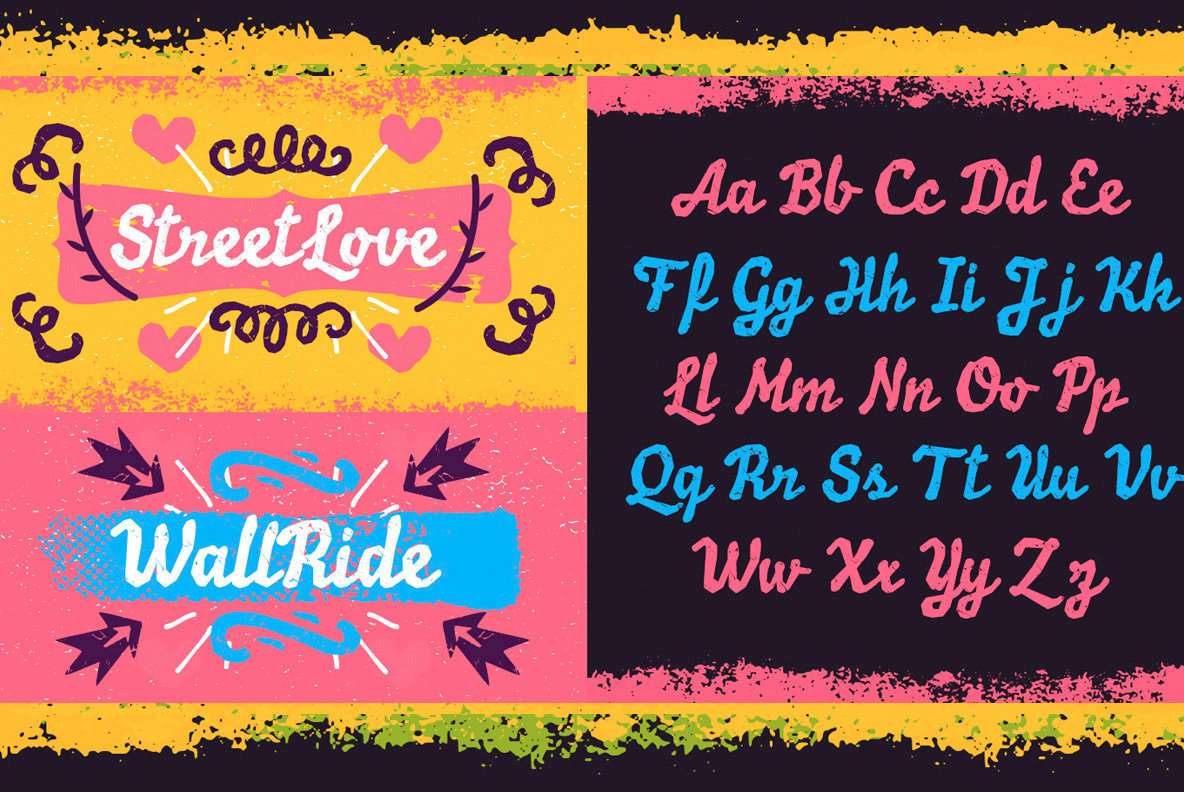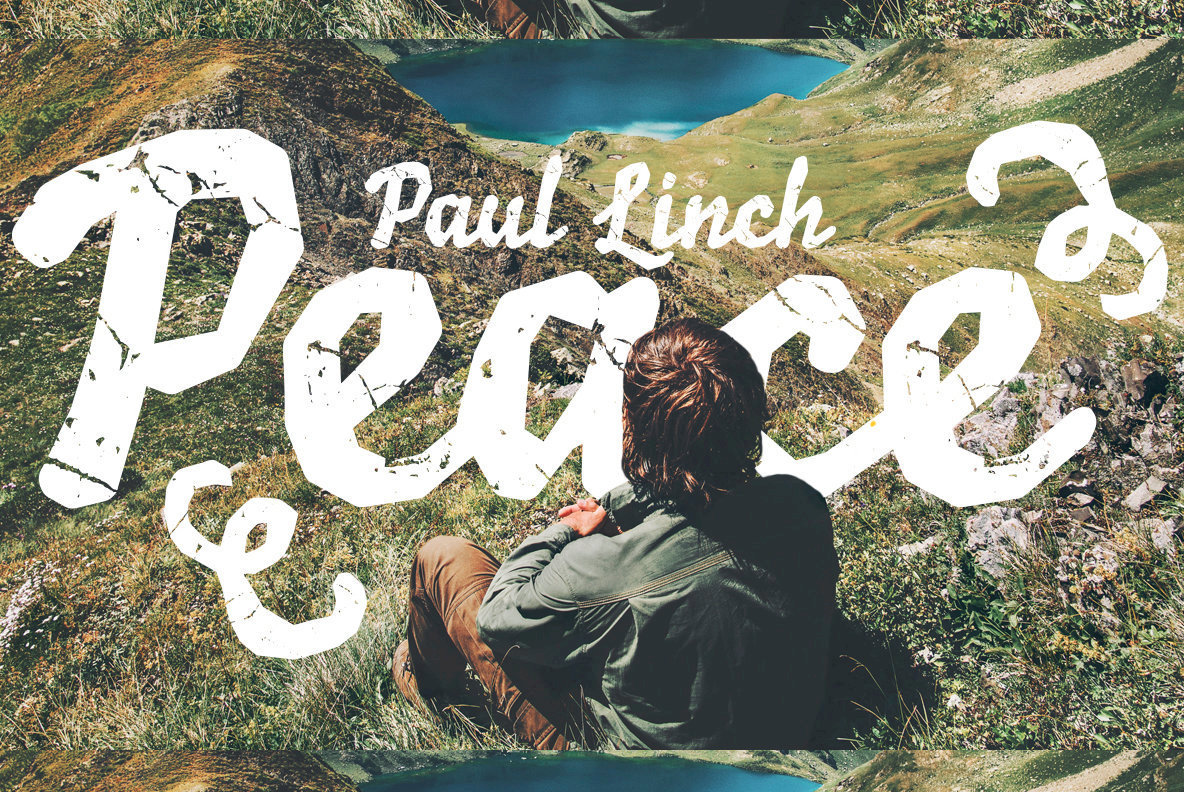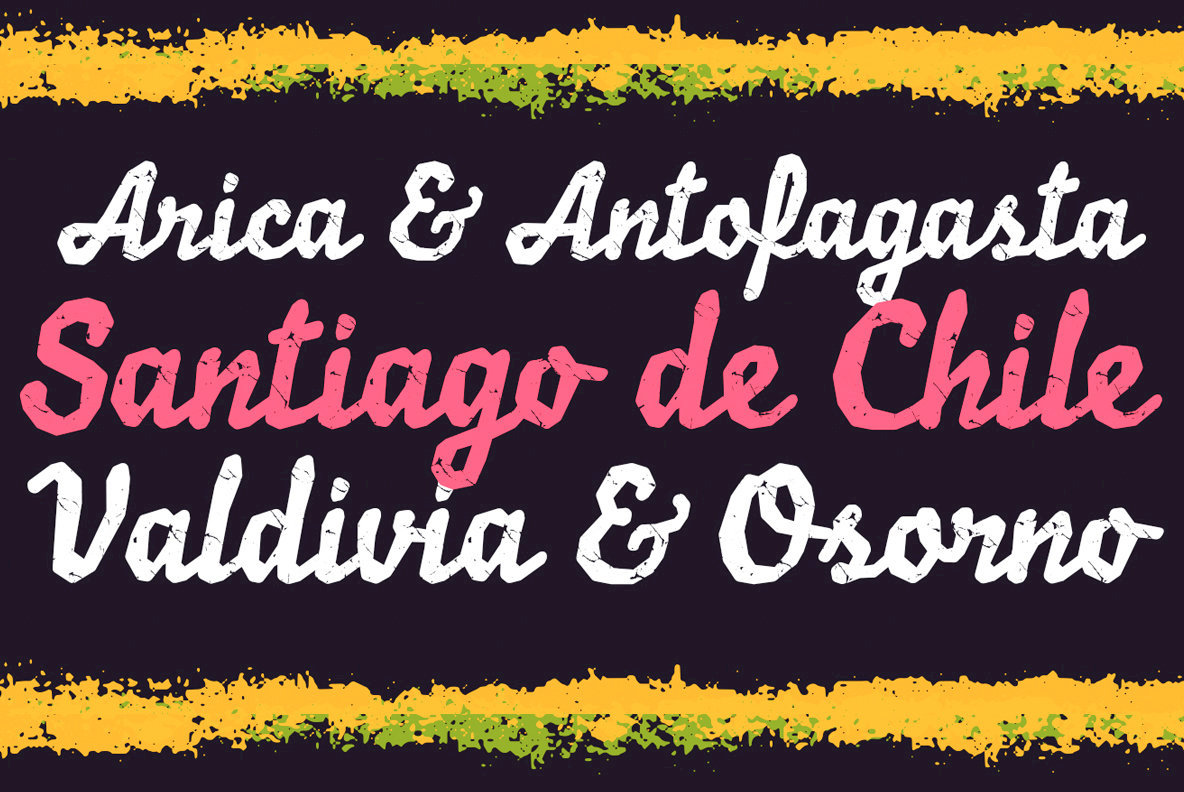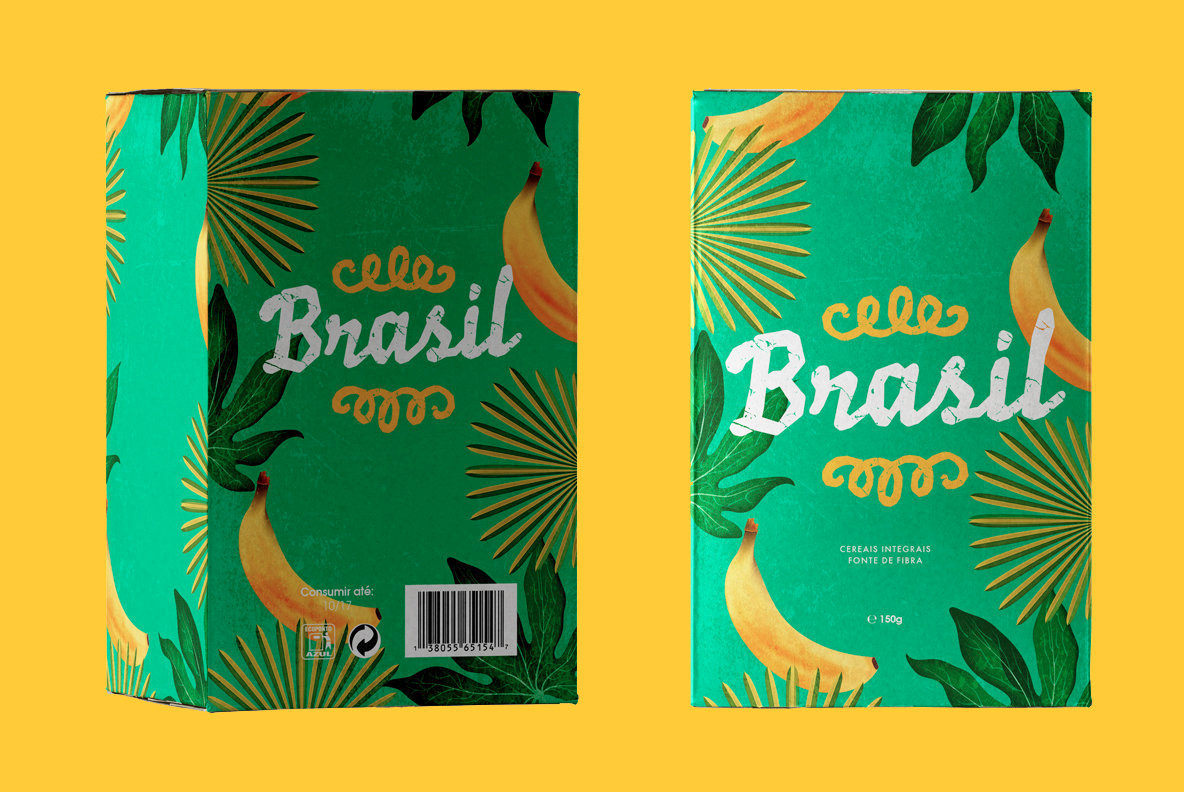
Balzac Dirt Font
Balzac Dirt Extra
Balzac Dirt Dingbats
Balzac Dirt Rough
Balzac Dirt Shadow
Balzac Dirt brings an intriguing twist to the classic serif genre, making it an excellent choice for designers seeking a unique yet familiar typeface. This variant introduces deliberate textural details, offering depth and visual interest.Balzac Dirt: A Distinctive Serif Variation
Dirt enriches your typographic palette, providing a fresh perspective while maintaining classic appeal suitable for diverse design needs.